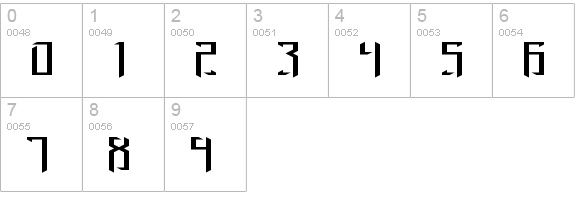
Brigadoom Wide BRK Font Details
Brigadoom Wide BRK is a distinctive, extended-width variant in the Brigadoom typeface family \xE2\x80\x94 well suited to design and typography projects.
Brigadoom Wide BRK font is a bold and impactful typeface that exudes strength and modernity. With its wide letterforms and sharp edges, this font commands attention and makes a statement in any design project. The geometric shapes and distinctive style of Brigadoom Wide BRK font make it perfect for headlines, logos, posters, and other display purposes. What sets Brigadoom Wide BRK font apart is that it is available for free download at FontsMarket.com. This means that you can easily access and use this striking font in your projects without any cost. Whether you're a designer looking to add a unique touch to your work or a business in need of a strong visual identity, Brigadoom Wide BRK font is a great choice for making a bold impact. Download it today and unleash its power in your designs!